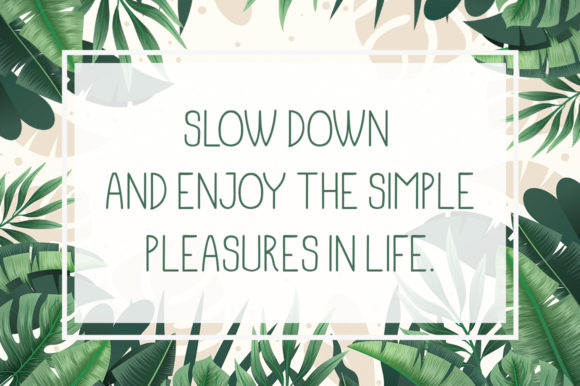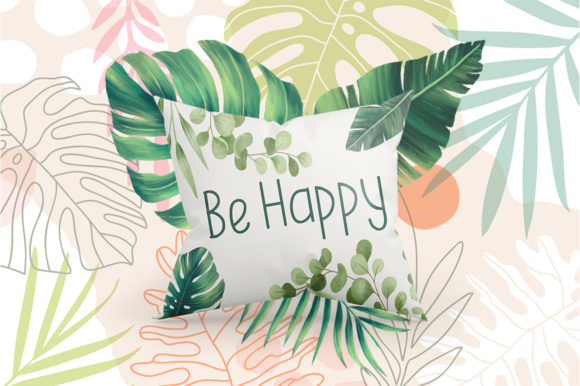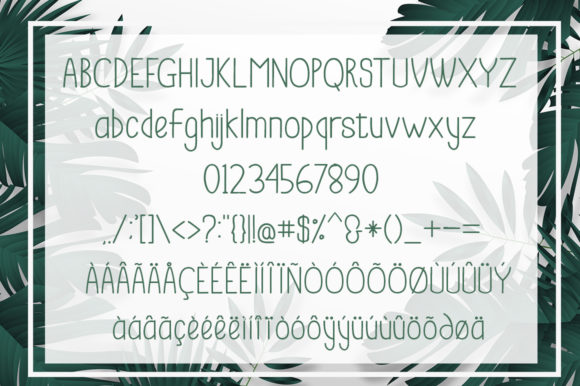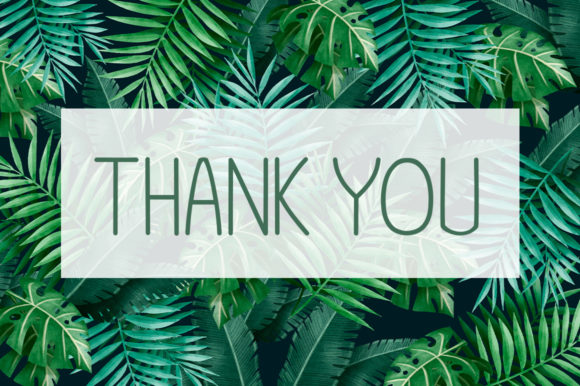
Cannabo Font: The Sweet and Friendly Handwritten Font for Your Creative Projects
Are you a designer or crafter looking for a unique and versatile font to elevate your creative projects? Look no further than Cannabo Font! This sweet and friendly handwritten font is perfect for a wide range of designs, from branding and packaging to invitations and digital media. In this article, we’ll dive into the features and benefits of Cannabo Font, and explore how it can help bring your creative vision to life.
The Charm of Cannabo Font
Cannabo Font is a beautifully crafted handwritten font that exudes a sense of warmth and friendliness. Its natural and unique style makes it incredibly fitting for a large pool of designs, from rustic and vintage to modern and playful. The font’s sweet and approachable feel is sure to capture the hearts of your audience, making it perfect for projects that require a personal touch.
What Makes Cannabo Font So Versatile?
The versatility of Cannabo Font lies in its ability to adapt to different design styles and themes. Whether you’re creating a logo, brochure, or social media graphic, this font can help you achieve a cohesive and visually appealing look. Here are just a few examples of how you can use Cannabo Font:
- Branding and Packaging: Use Cannabo Font to create eye-catching labels, packaging, and branding materials that reflect your brand’s personality.
- Invitations and Stationery: Add a touch of elegance and whimsy to your invitations, greeting cards, and stationery with Cannabo Font.
- Digital Media: Use Cannabo Font to create engaging social media graphics, blog posts, and website content that resonates with your audience.
- Crafting and DIY: Perfect for crafters and DIY enthusiasts, Cannabo Font can be used to create custom signs, banners, and other decorative items.
The Benefits of Using Cannabo Font
So why choose Cannabo Font for your creative projects? Here are just a few benefits of using this amazing font:
- Unique and Creative: Cannabo Font offers a fresh and unique perspective on handwritten fonts, allowing you to stand out from the crowd.
- Easily Readable: The font’s clear and legible design ensures that your message is communicated effectively, even at small sizes.
- Highly Versatile: Cannabo Font can be used for a wide range of projects, from digital media to print materials.
- Time-Saving: With Cannabo Font, you can quickly and easily create professional-looking designs without spending hours on typography.
In conclusion, Cannabo Font is a sweet and friendly handwritten font that offers a world of creative possibilities. Its natural and unique style makes it incredibly fitting for a wide range of designs, from branding and packaging to invitations and digital media. With its versatility, readability, and ease of use, Cannabo Font is the perfect choice for designers and crafters looking to elevate their creative projects. So why wait? Download Cannabo Font today and unleash your creativity!